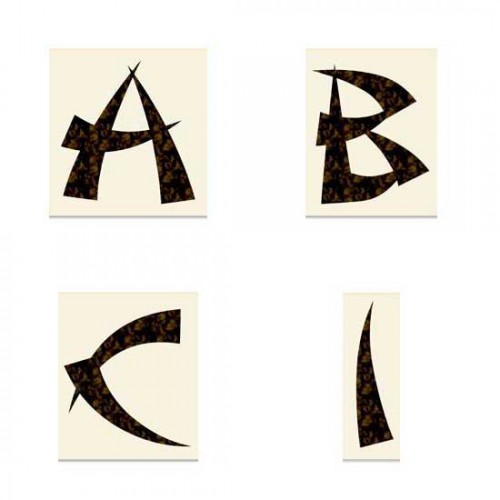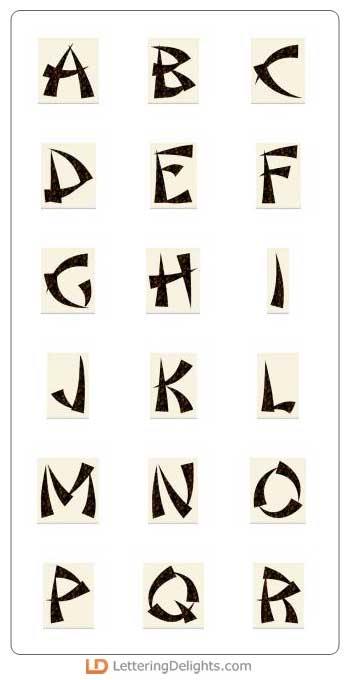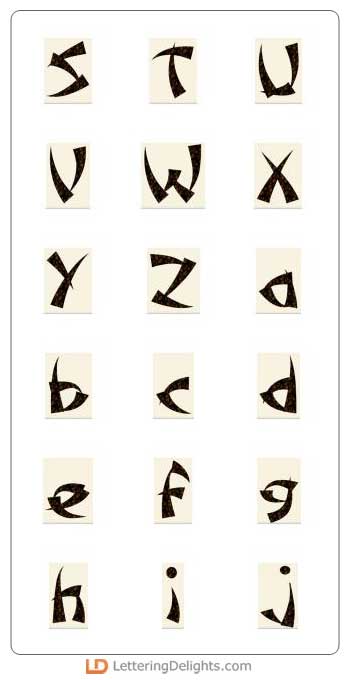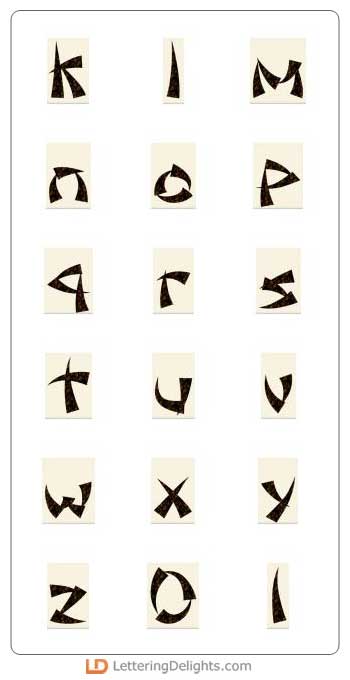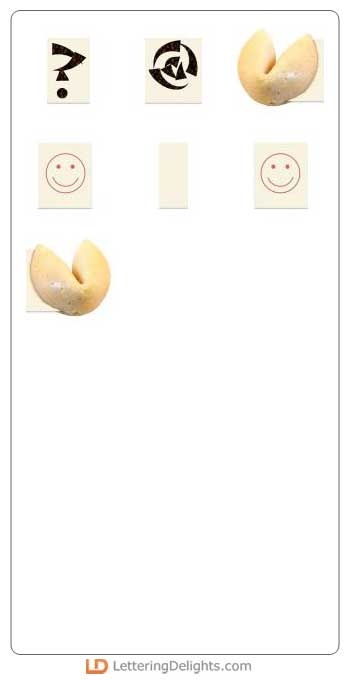
Tell us your fortune using the letters of this asian-inspired alphabet, complete with delicious cookies! Add an oriental touch to your scrapbook pages or other paper projects.